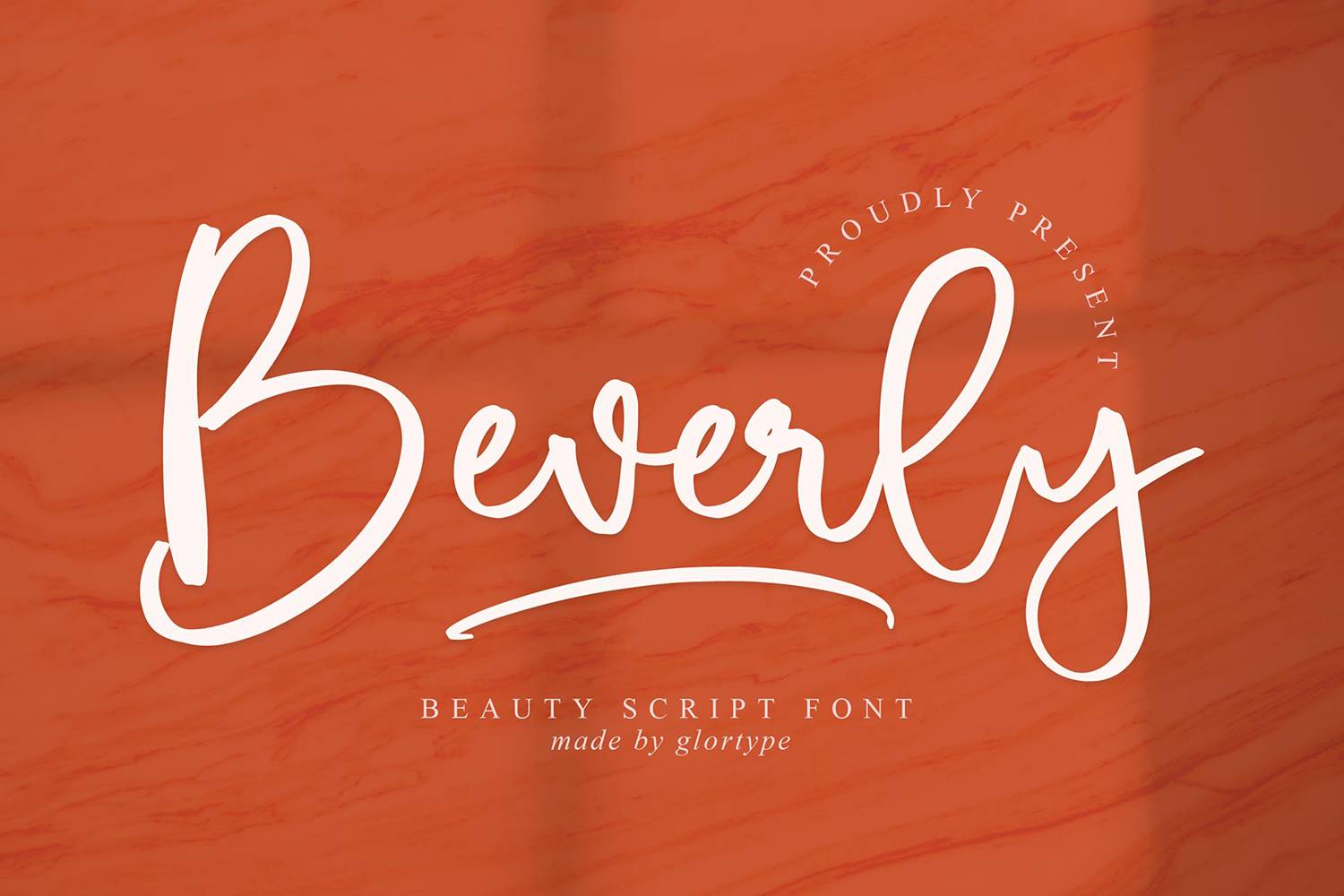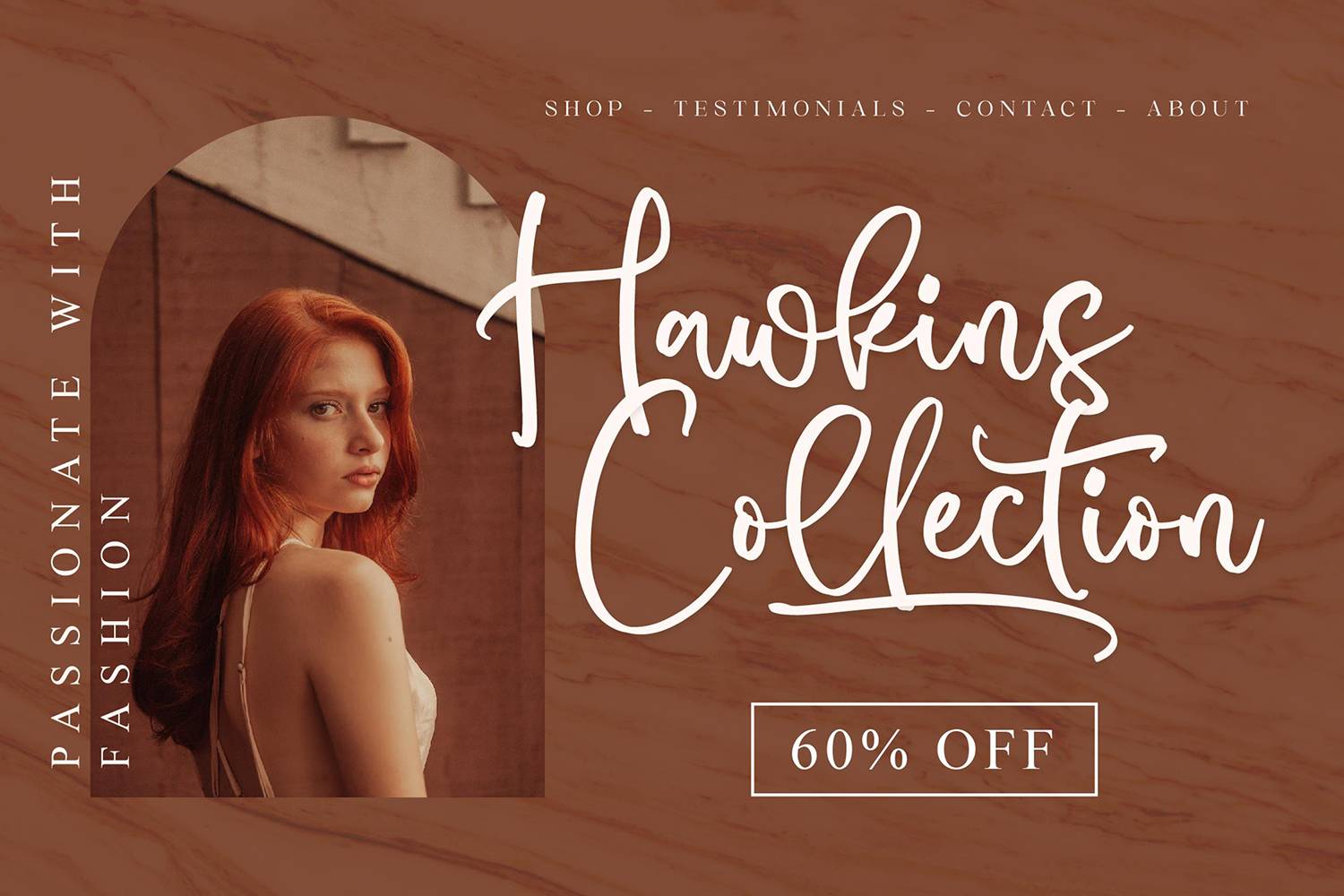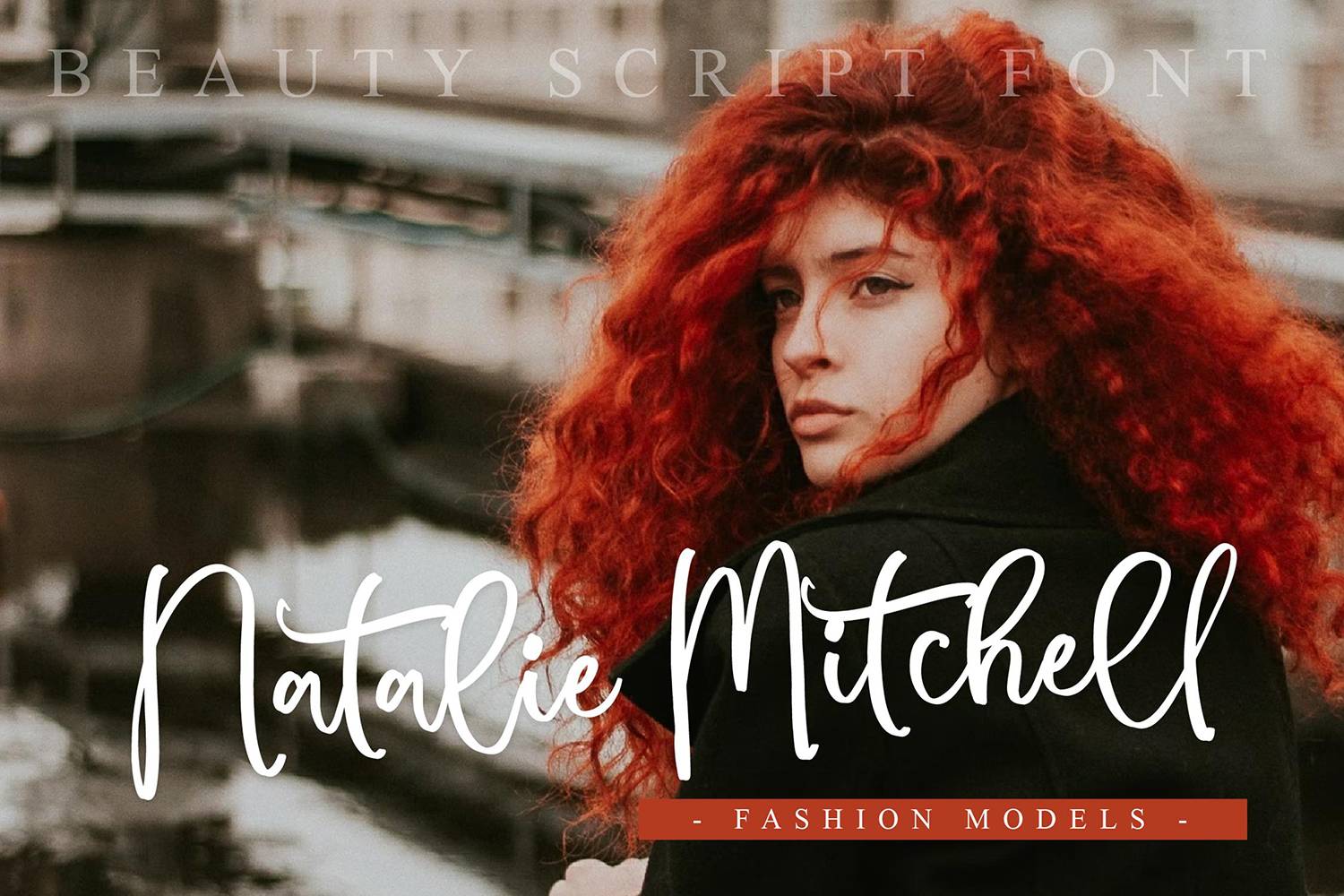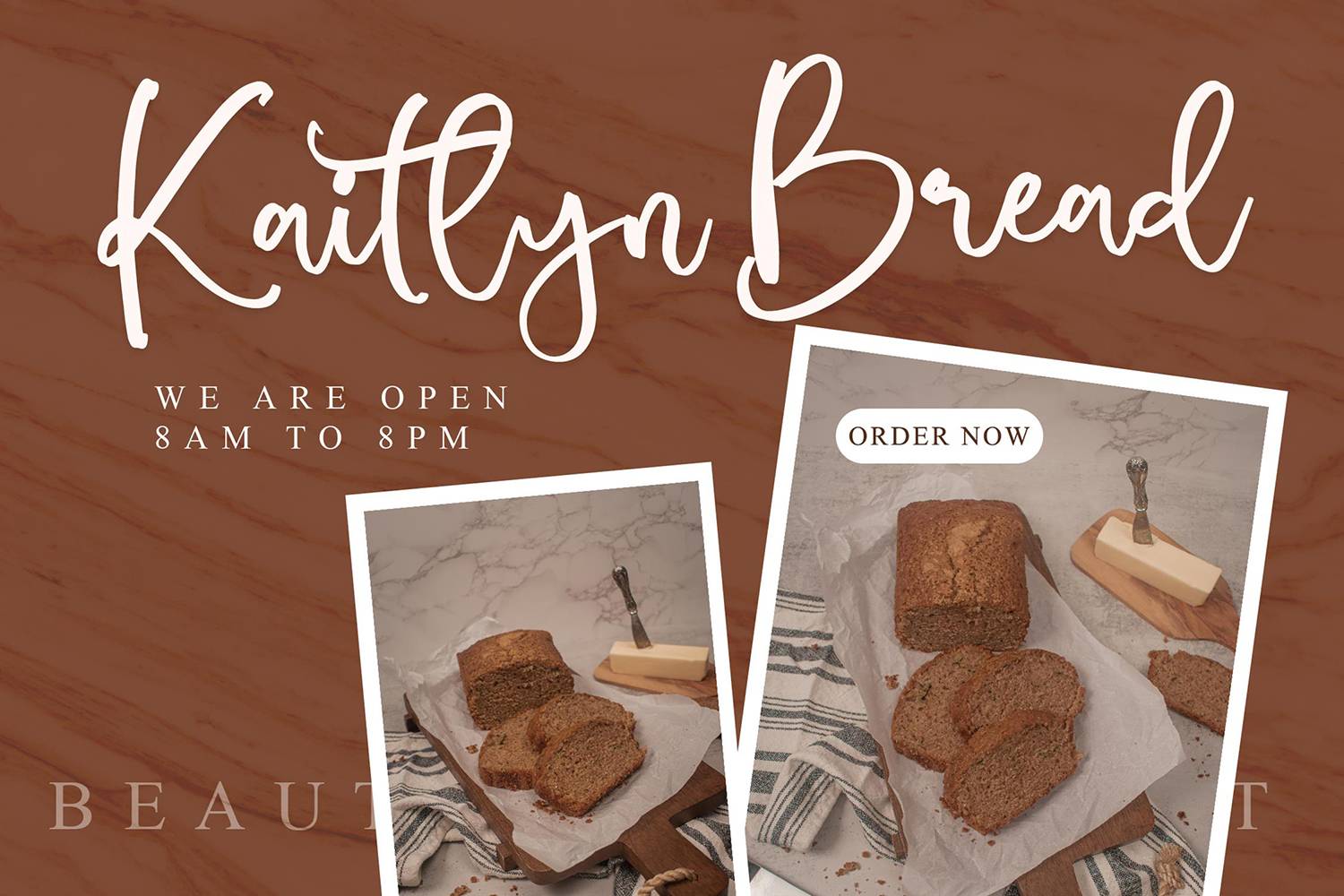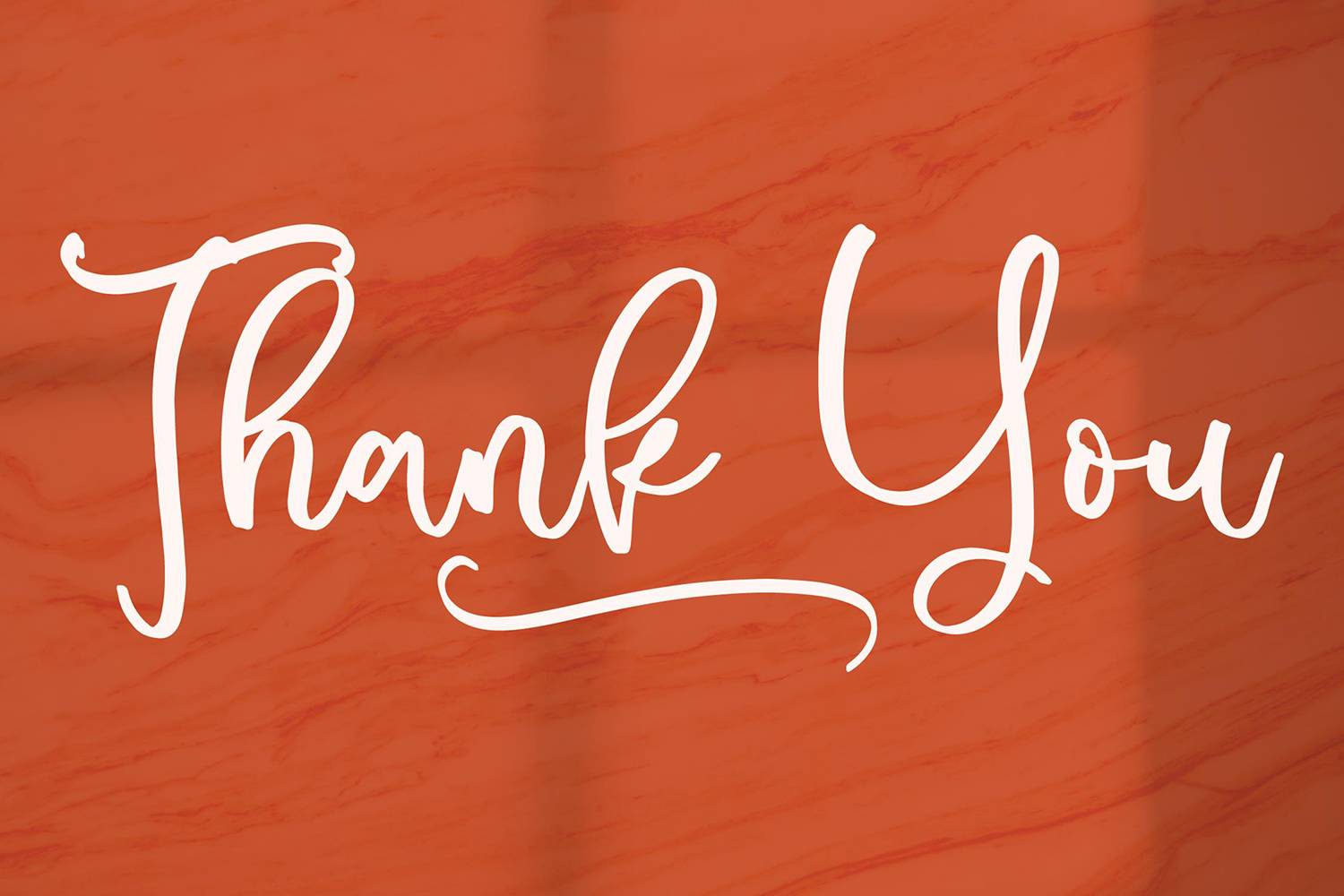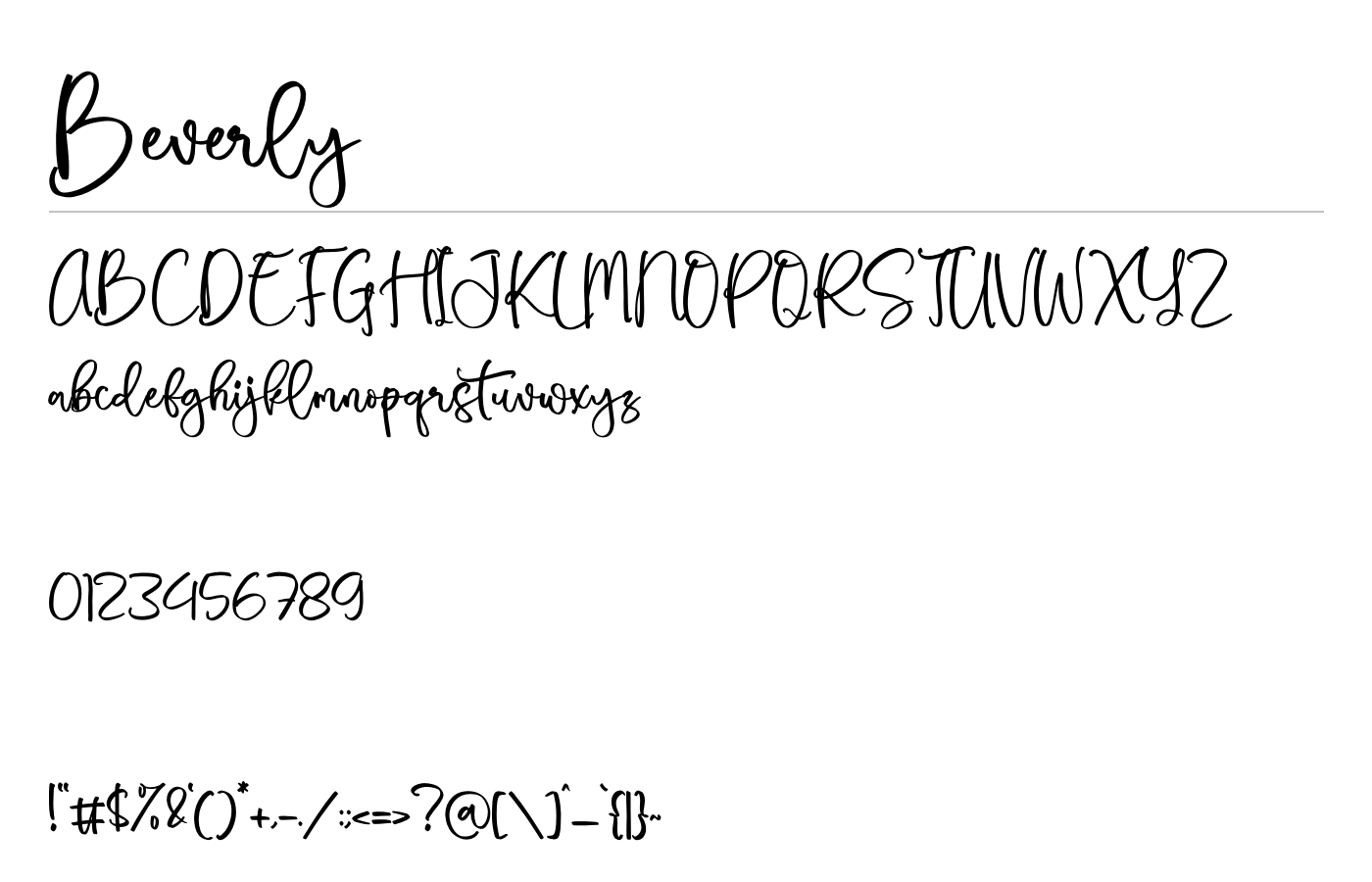
Beverly is a playful, handwritten script font with a light, flowing style that brings a casual yet elegant feel to any design. Its tall, slender letterforms feature smooth curves and charming loops, making it perfect for creative projects like invitations, branding, and social media graphics that aim to appear personal and approachable. This font works well in headlines and decorative uses where a friendly, stylish touch is desired.
Beverly Font
About Beverly Font